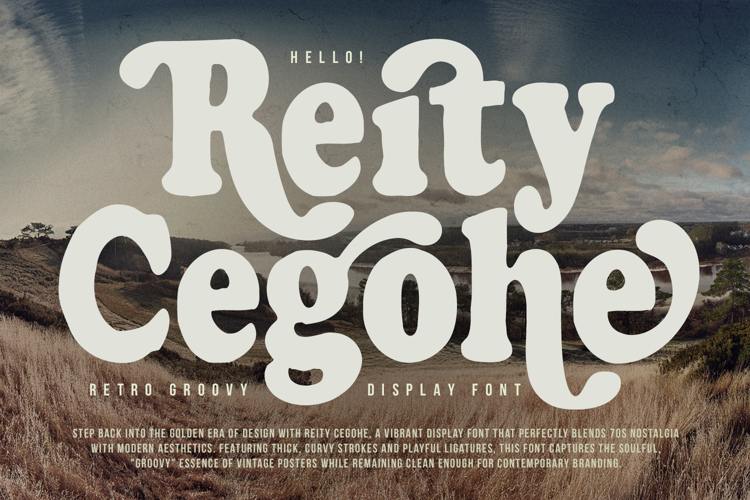
Reity Cegohe Retro Groovy Display Font Modern
Step back into the golden era of design with Reity Cegohe, a vibrant display font that perfectly blends 70s nostalgia with modern aesthetics. Featuring thick, curvy strokes and playful ligatures, this font captures the soulful, "groovy" essence of vintage posters while remaining clean enough for contemporary branding. Whether you're designing a cozy café logo, a bold magazine headline, or eye-catching social media graphics, Reity Cegohe adds a layer of warmth and organic personality to every project. It comes packed with multilingual support, unique alternates, and elegant ligatures to give your typography a custom, hand-lettered feel.
- Full character set
- Numbers, Punctuation, and Symbols
- Ligature and alternates for a natural handwriting flow